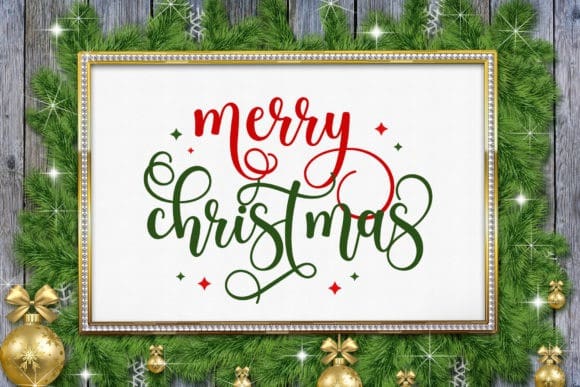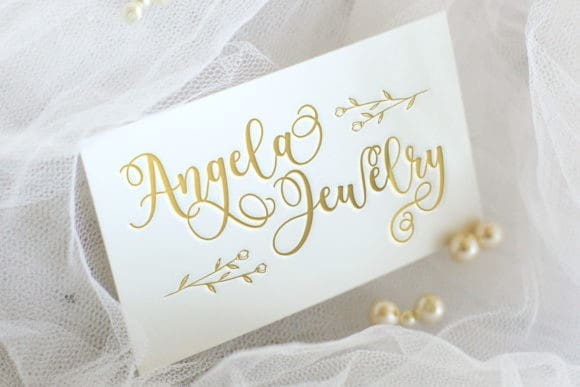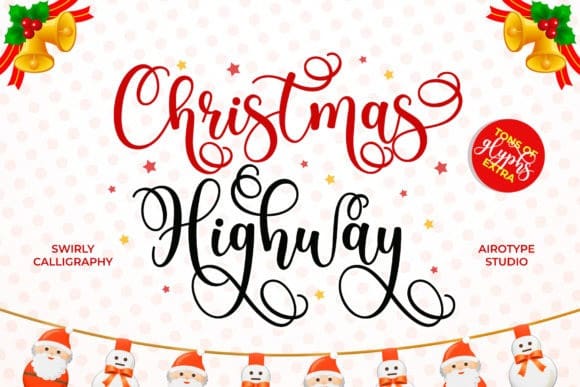
Christmas Highway Font
Christmas Highway Font is a highly detailed and uniquely crafted handwritten font. It is PUA encoded which means you can access all of the glyphs and swashes with ease!
Fall in love with its incredibly versatile style and use it to create spectacular designs!